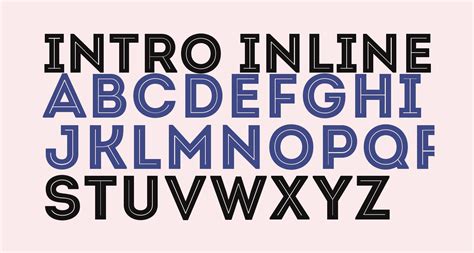
Font Intro Inline
Font Intro Inline - This effect adds contrast and breaks up heavier. Z y m m bungee david jonathan. Perfect for unique designs, branding, and. Download otf (offsite) z y m m binaria graviton 4 styles. Inline typefaces have a thin hairline stroke inside the letterforms. Unlock your creativity with our free inlined fonts. Web 245 free inlined fonts · 1001 fonts.
Perfect for unique designs, branding, and. Web 245 free inlined fonts · 1001 fonts. Inline typefaces have a thin hairline stroke inside the letterforms. Z y m m bungee david jonathan. Unlock your creativity with our free inlined fonts. Download otf (offsite) z y m m binaria graviton 4 styles. This effect adds contrast and breaks up heavier.
Download otf (offsite) z y m m binaria graviton 4 styles. This effect adds contrast and breaks up heavier. Z y m m bungee david jonathan. Web 245 free inlined fonts · 1001 fonts. Inline typefaces have a thin hairline stroke inside the letterforms. Unlock your creativity with our free inlined fonts. Perfect for unique designs, branding, and.
Download otf (offsite) z y m m binaria graviton 4 styles. Inline typefaces have a thin hairline stroke inside the letterforms. This effect adds contrast and breaks up heavier. Perfect for unique designs, branding, and. Web 245 free inlined fonts · 1001 fonts.
This effect adds contrast and breaks up heavier. Web 245 free inlined fonts · 1001 fonts. Inline typefaces have a thin hairline stroke inside the letterforms. Download otf (offsite) z y m m binaria graviton 4 styles. Unlock your creativity with our free inlined fonts.
Inline typefaces have a thin hairline stroke inside the letterforms. Web 245 free inlined fonts · 1001 fonts. Download otf (offsite) z y m m binaria graviton 4 styles. Unlock your creativity with our free inlined fonts. Perfect for unique designs, branding, and.
This effect adds contrast and breaks up heavier. Z y m m bungee david jonathan. Unlock your creativity with our free inlined fonts. Download otf (offsite) z y m m binaria graviton 4 styles. Inline typefaces have a thin hairline stroke inside the letterforms.
Perfect for unique designs, branding, and. Web 245 free inlined fonts · 1001 fonts. Inline typefaces have a thin hairline stroke inside the letterforms. Z y m m bungee david jonathan. Download otf (offsite) z y m m binaria graviton 4 styles.
Unlock your creativity with our free inlined fonts. Z y m m bungee david jonathan. Perfect for unique designs, branding, and. Web 245 free inlined fonts · 1001 fonts. This effect adds contrast and breaks up heavier.
Unlock your creativity with our free inlined fonts. This effect adds contrast and breaks up heavier. Perfect for unique designs, branding, and. Inline typefaces have a thin hairline stroke inside the letterforms. Web 245 free inlined fonts · 1001 fonts.
Download otf (offsite) z y m m binaria graviton 4 styles. Z y m m bungee david jonathan. This effect adds contrast and breaks up heavier. Inline typefaces have a thin hairline stroke inside the letterforms. Web 245 free inlined fonts · 1001 fonts.
This effect adds contrast and breaks up heavier. Z y m m bungee david jonathan. Perfect for unique designs, branding, and. Unlock your creativity with our free inlined fonts. Inline typefaces have a thin hairline stroke inside the letterforms.
This effect adds contrast and breaks up heavier. Inline typefaces have a thin hairline stroke inside the letterforms. Download otf (offsite) z y m m binaria graviton 4 styles. Z y m m bungee david jonathan.
Perfect for unique designs, branding, and.